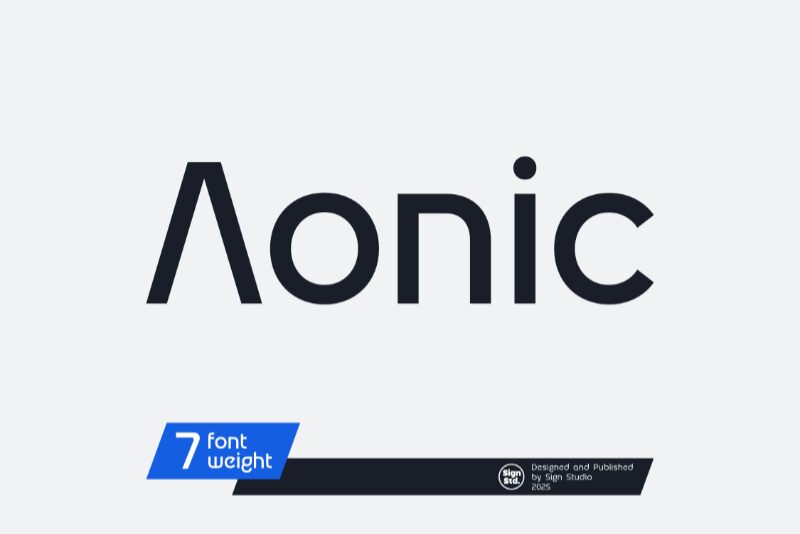
Aonic font by Sign Studio is a sleek and contemporary sans serif. It showcases geometric shapes with a futuristic aesthetic, combining clean lines and minimalistic details for a harmonious visual appeal. This modern typeface embodies elegance and simplicity, making it perfect for cutting-edge design projects.